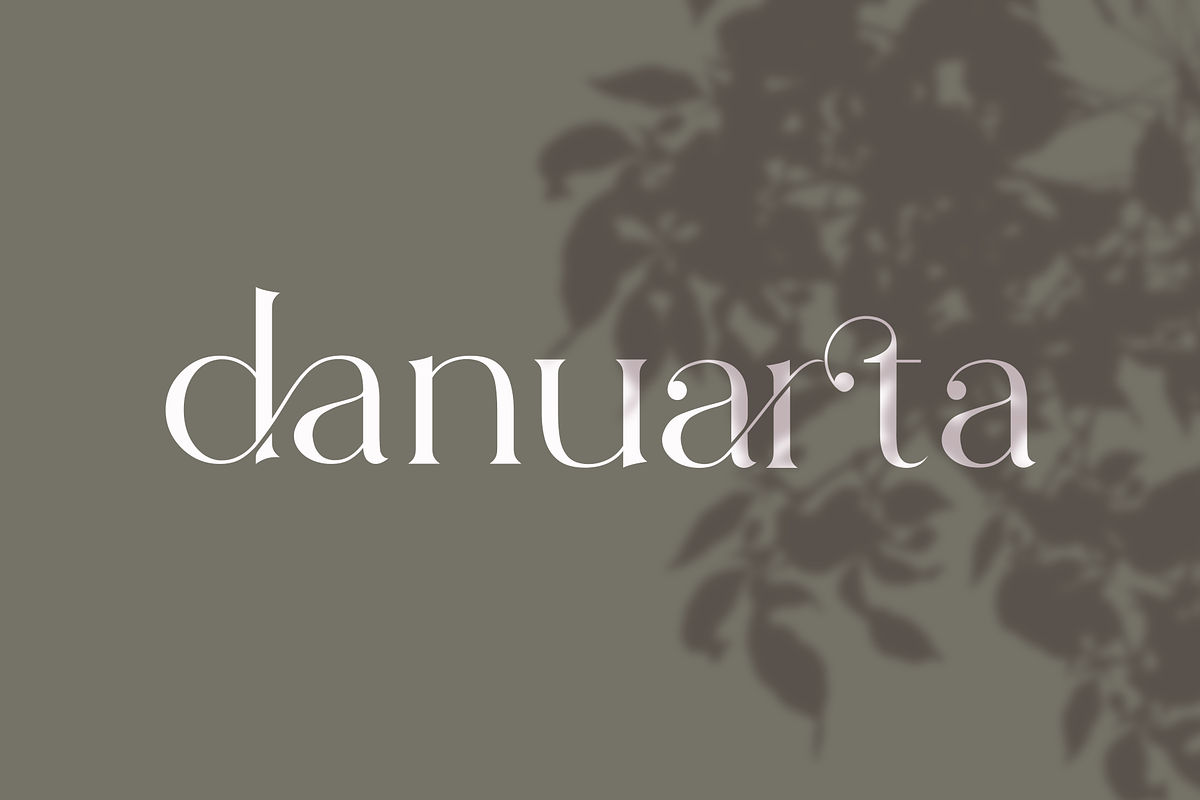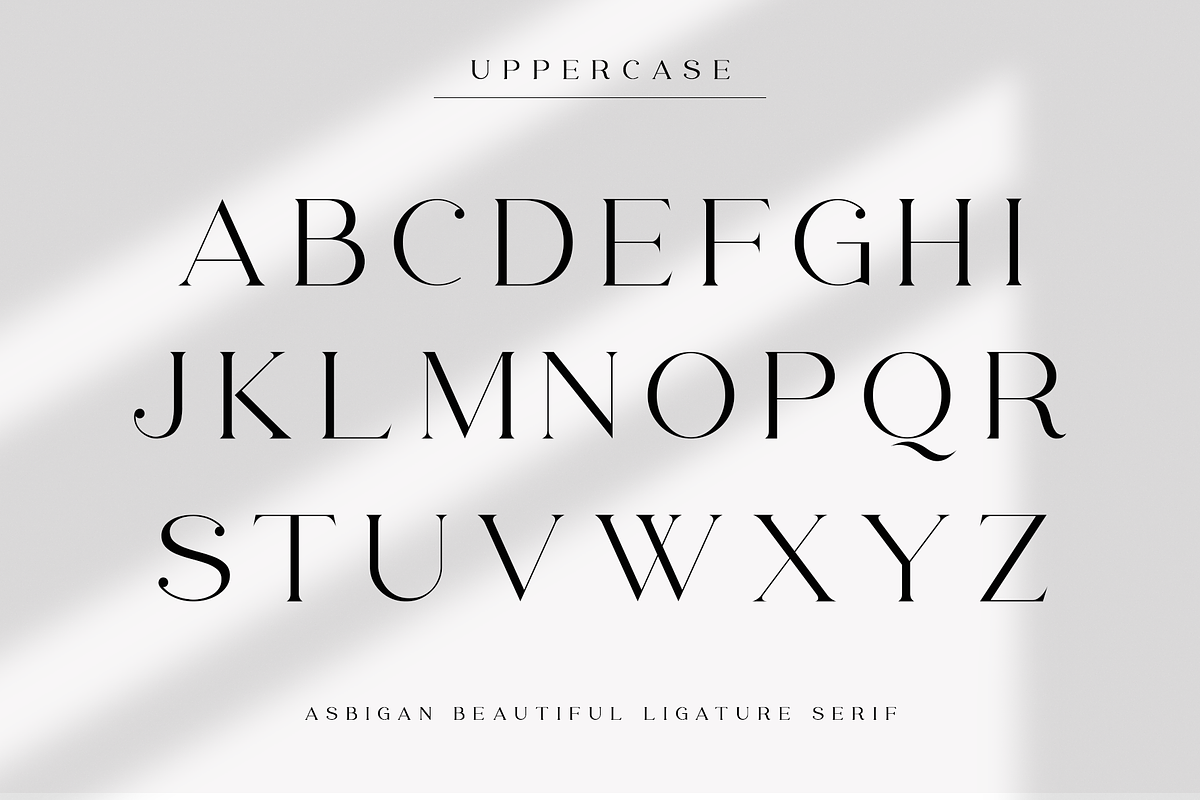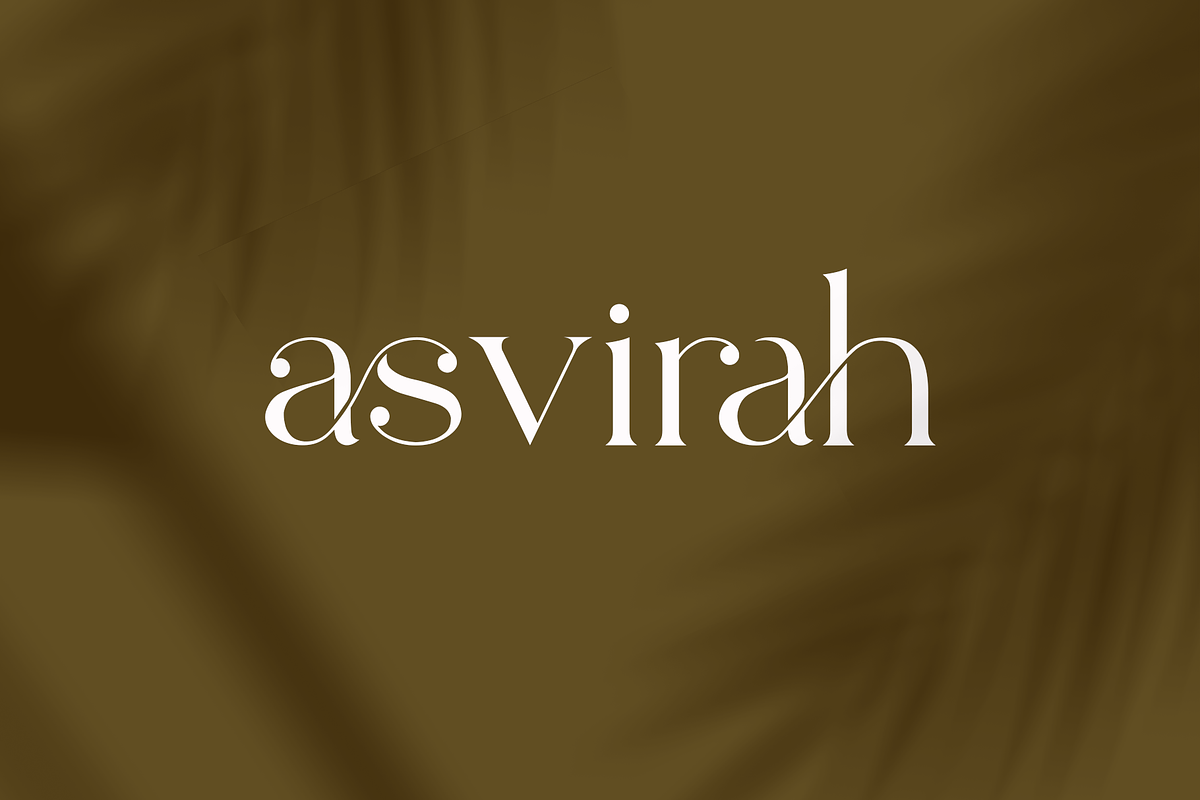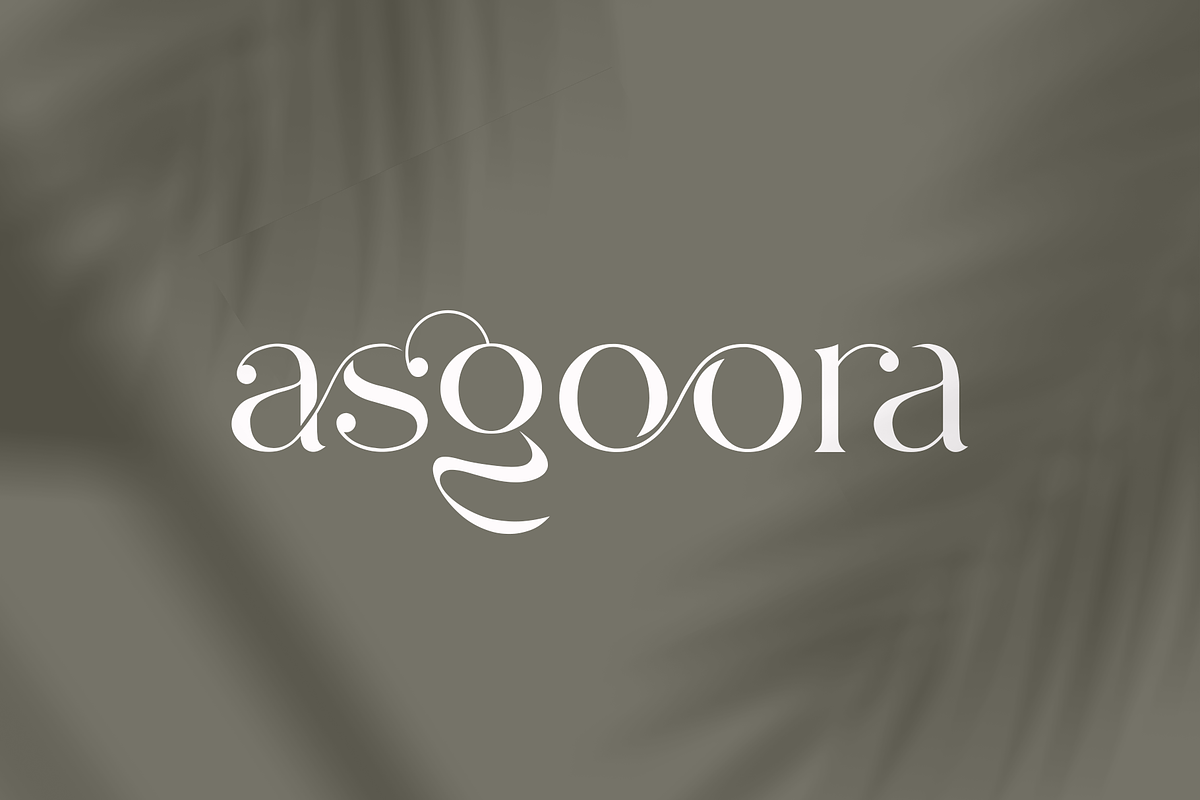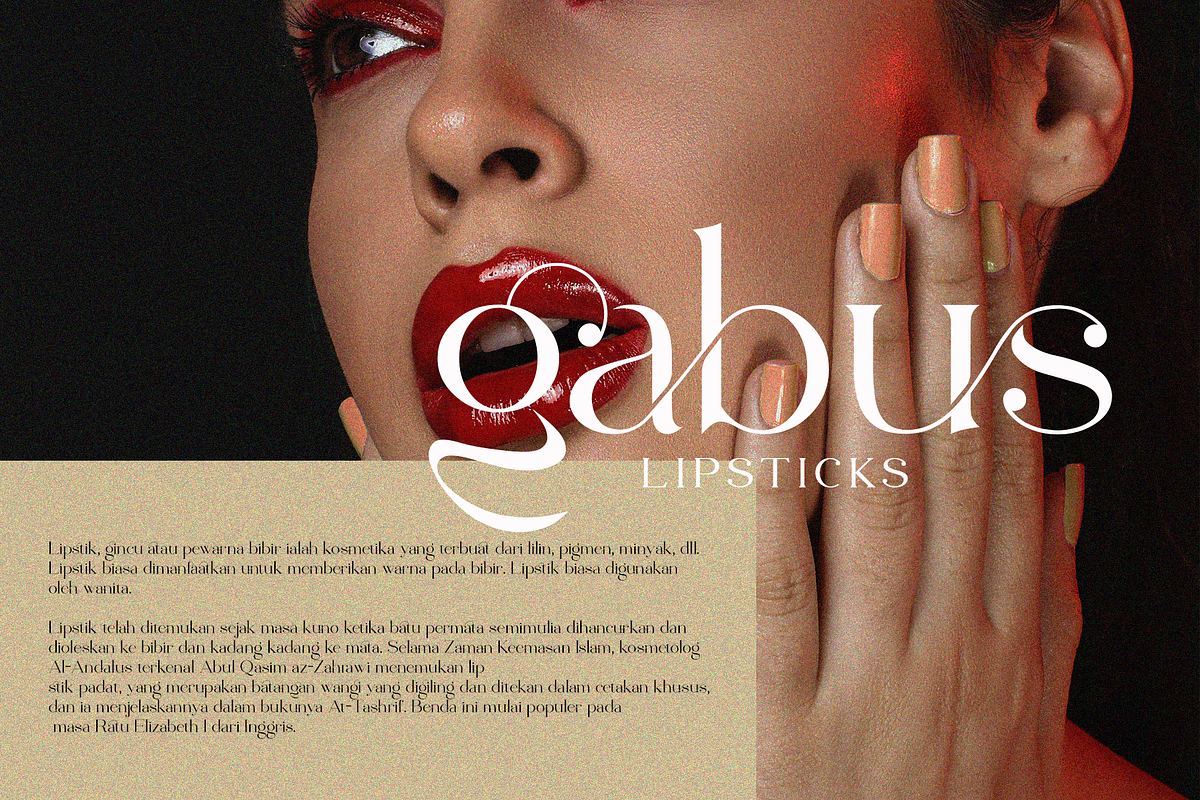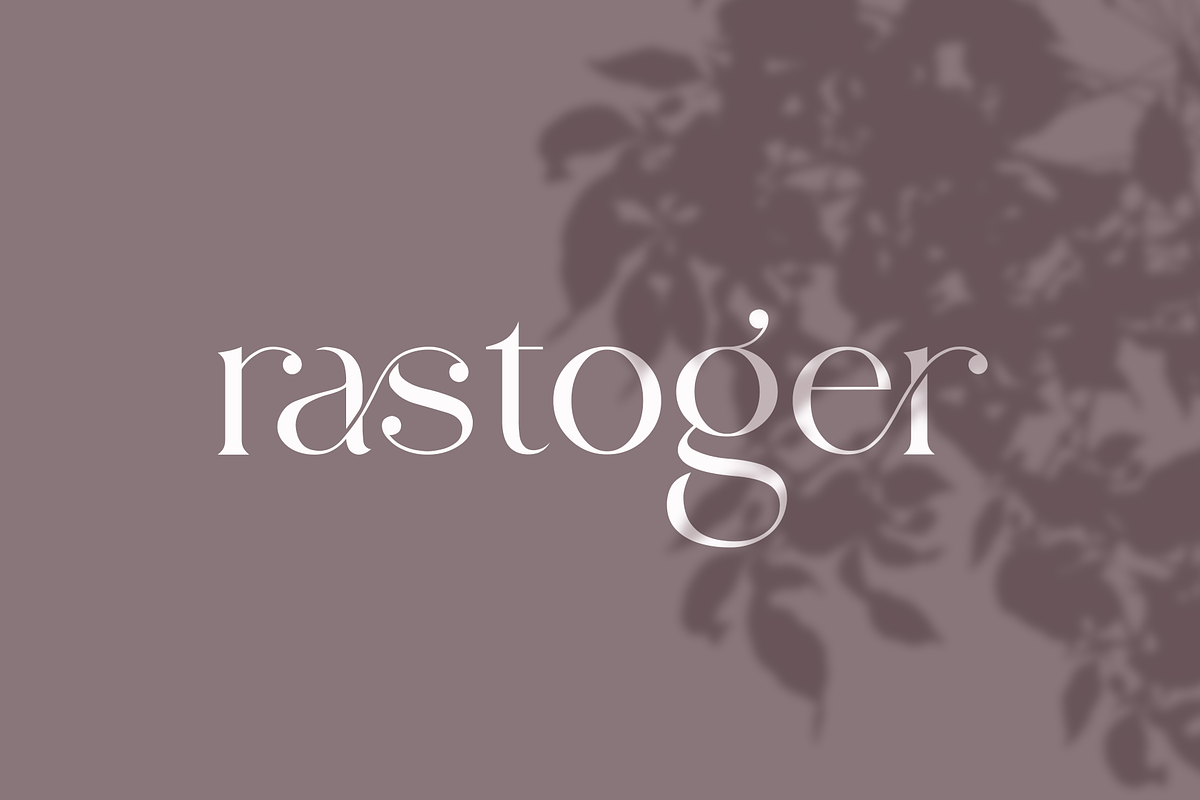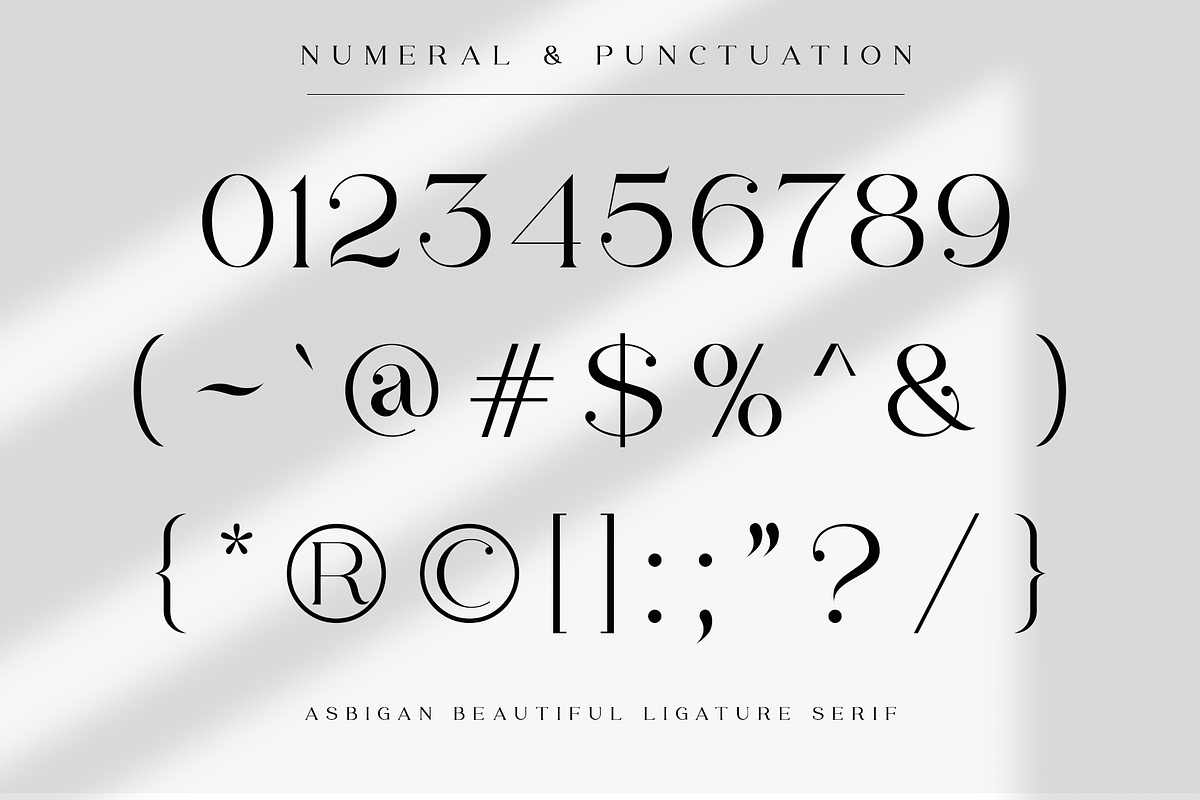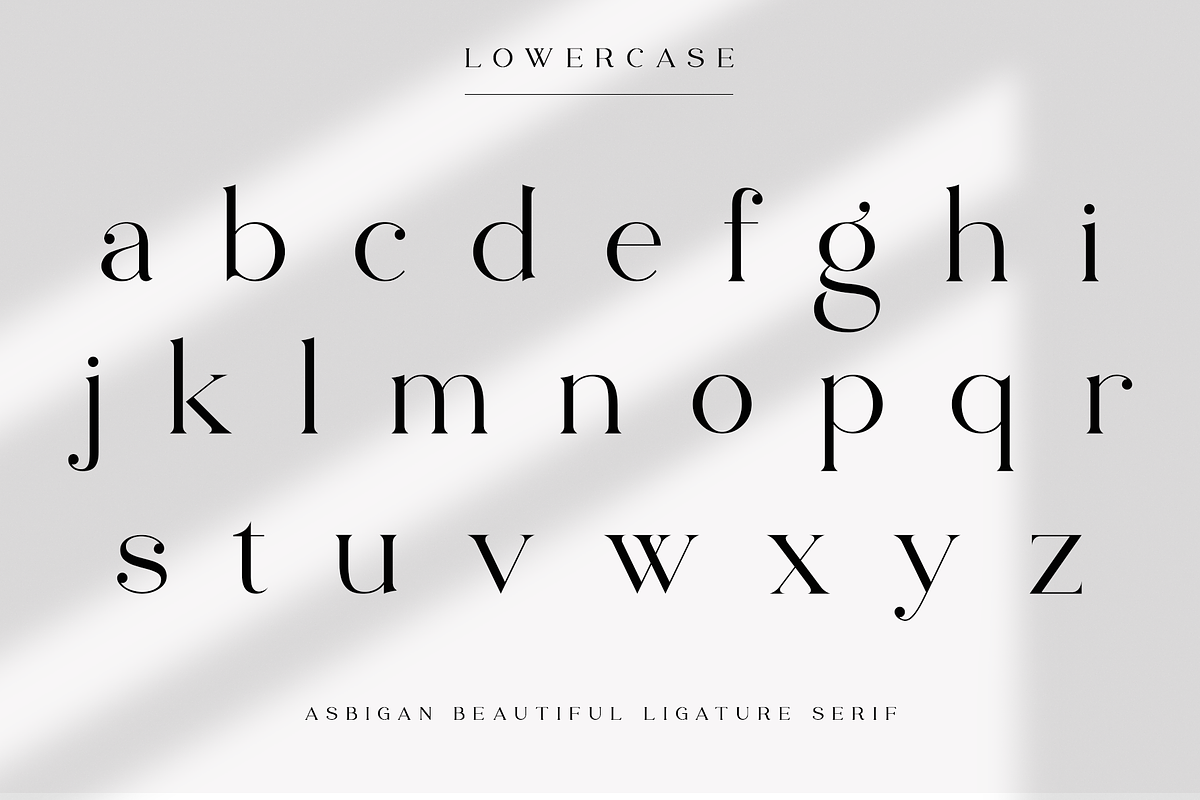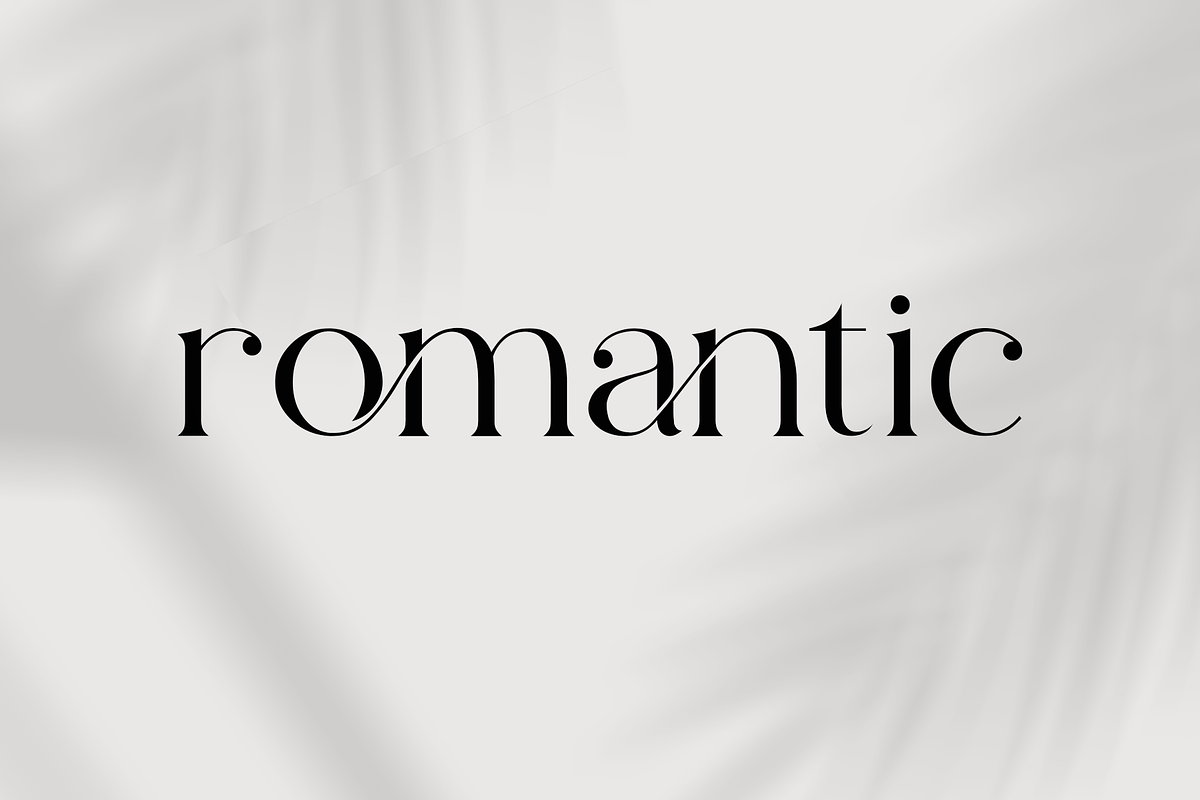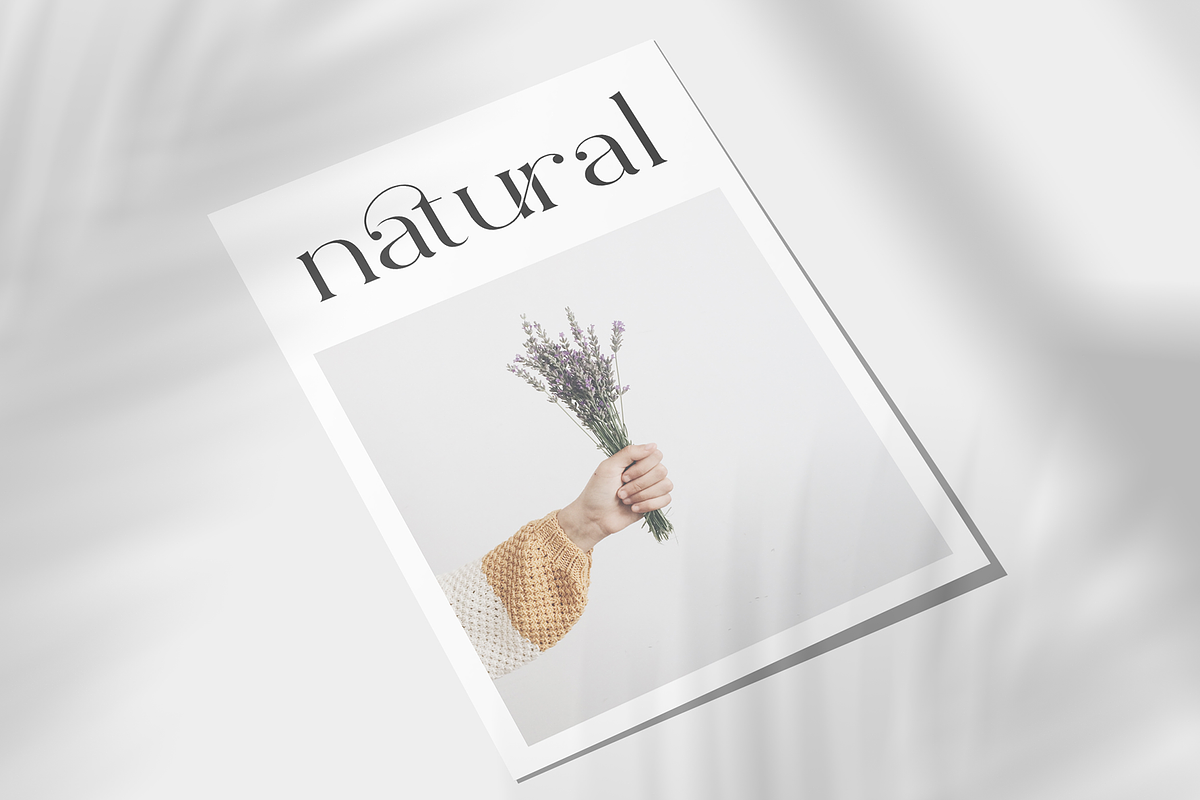
Asbigan
Asbigan is an beautiful and very elegant font for brand and logo design.
Based on our experience as a graphic designer who works for a lot of companies, we often are requested to design a logo in a unique style but with an elegant shape. So, we try to brainstorming and create this font to make the idea is going out. This font have 126 BEAUTIFUL LIGATURES is perfect for BRANDING and LOGO DESIGN. You will get classy, elegant, and certainly unique logos with this font.
Asbigan is also included full set of:
ligatures
uppercase and lowercase letters
multilingual symbols
numerals
punctuation